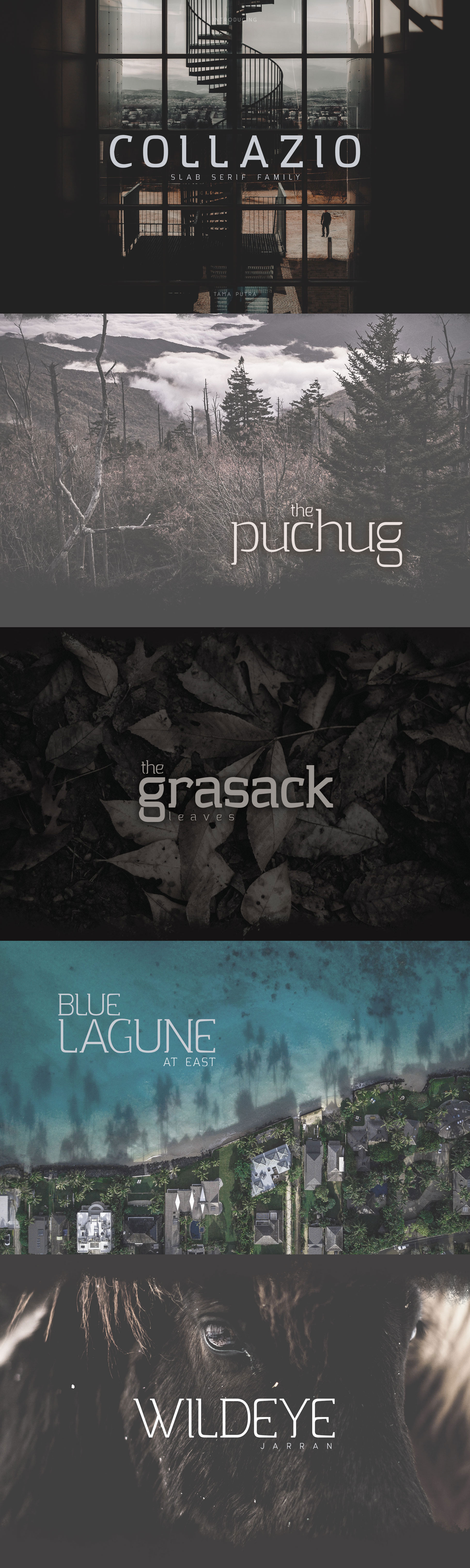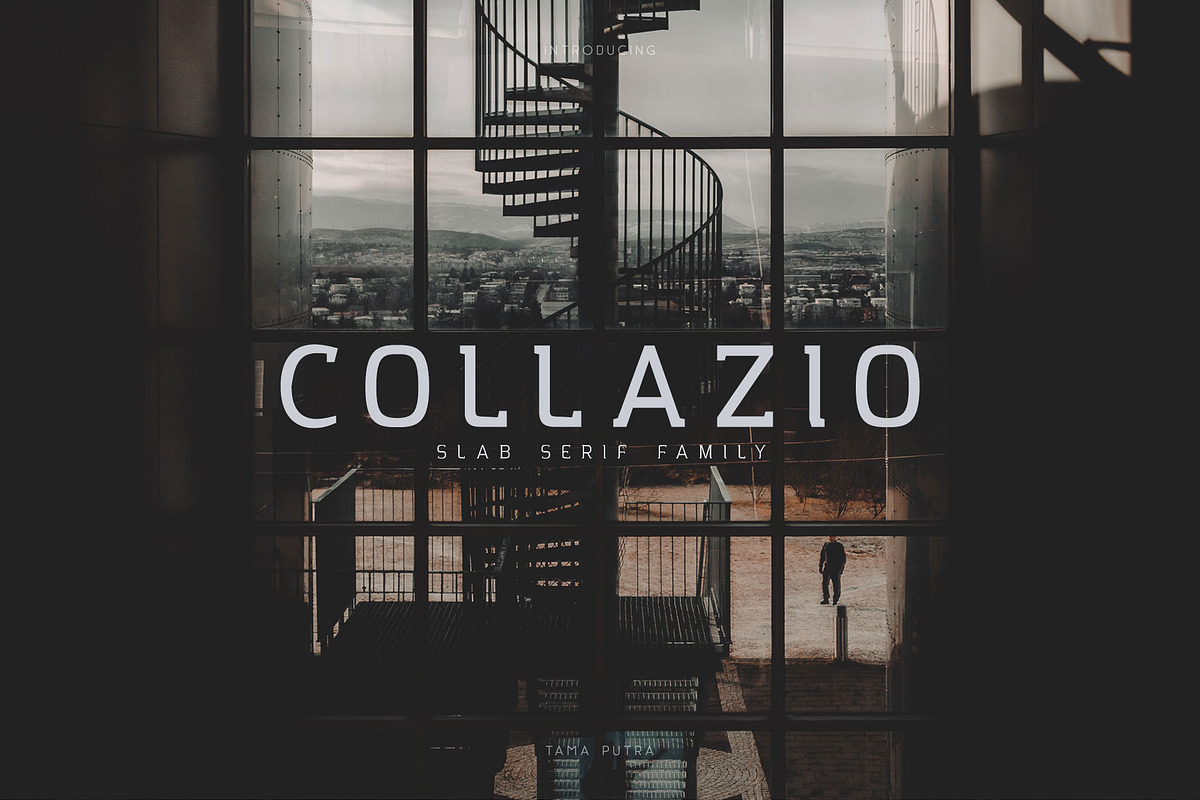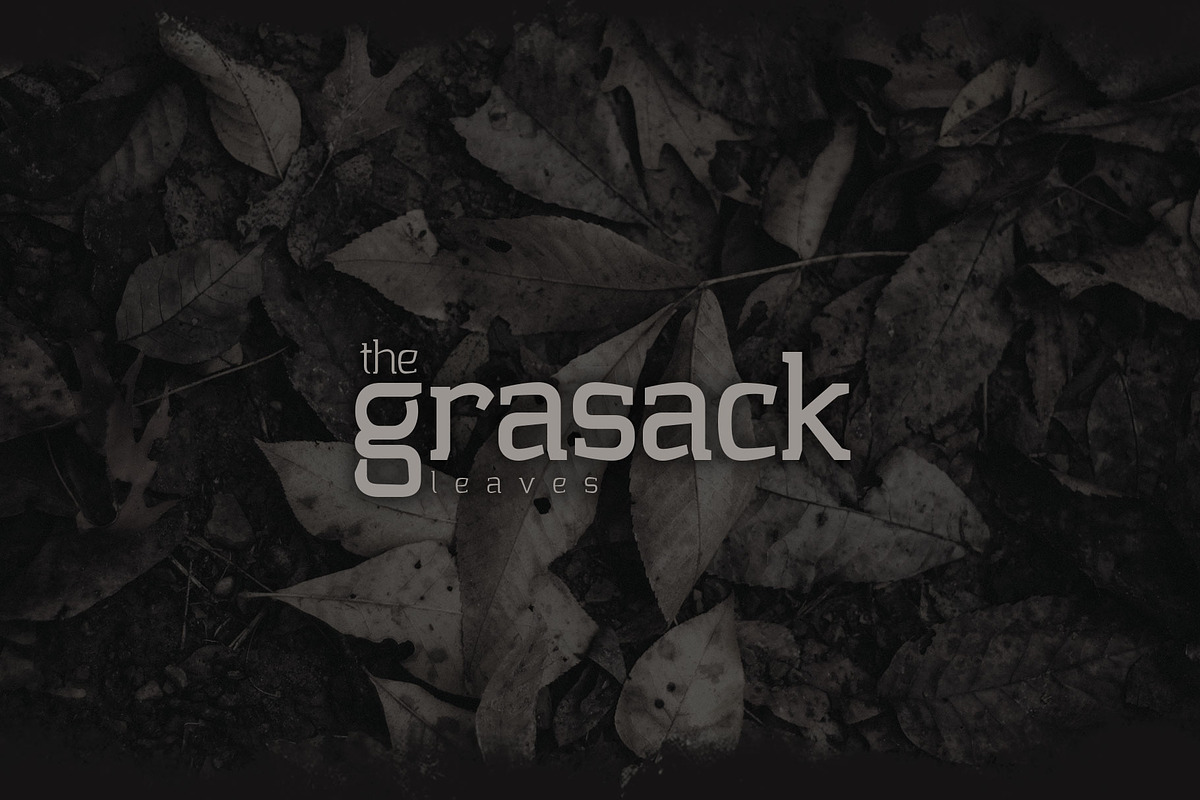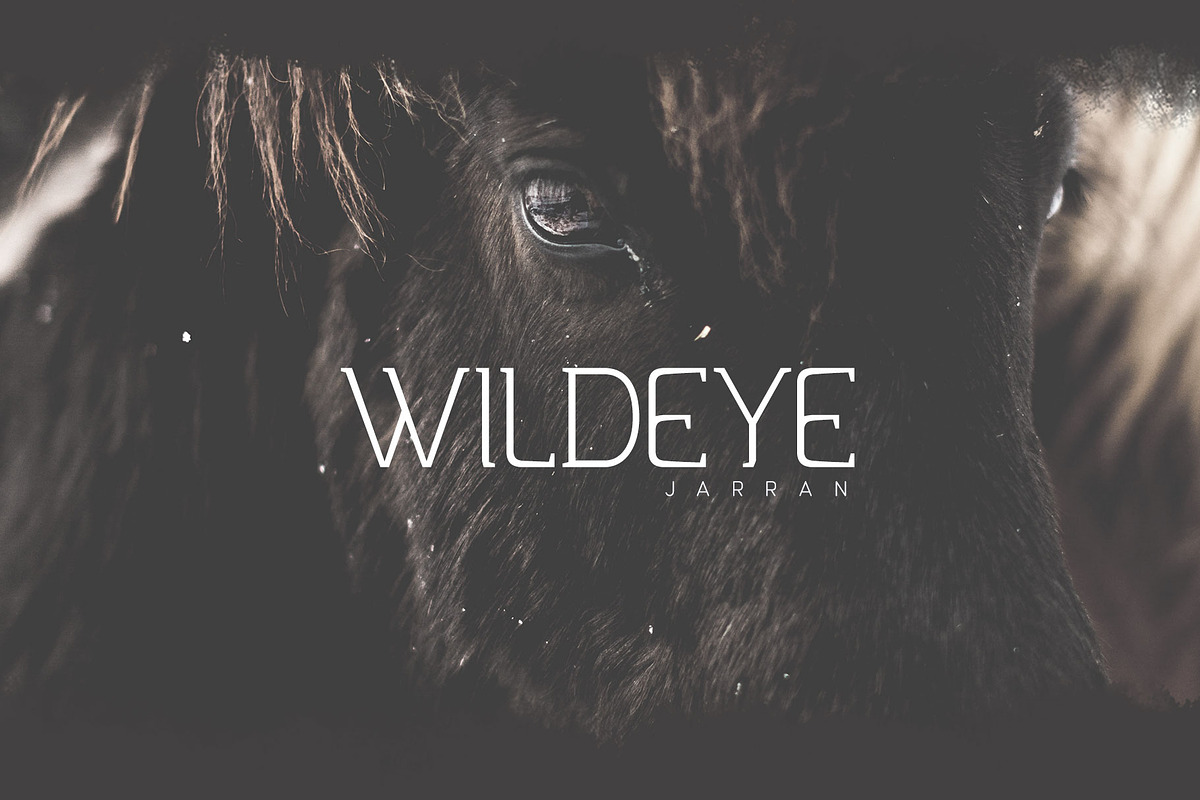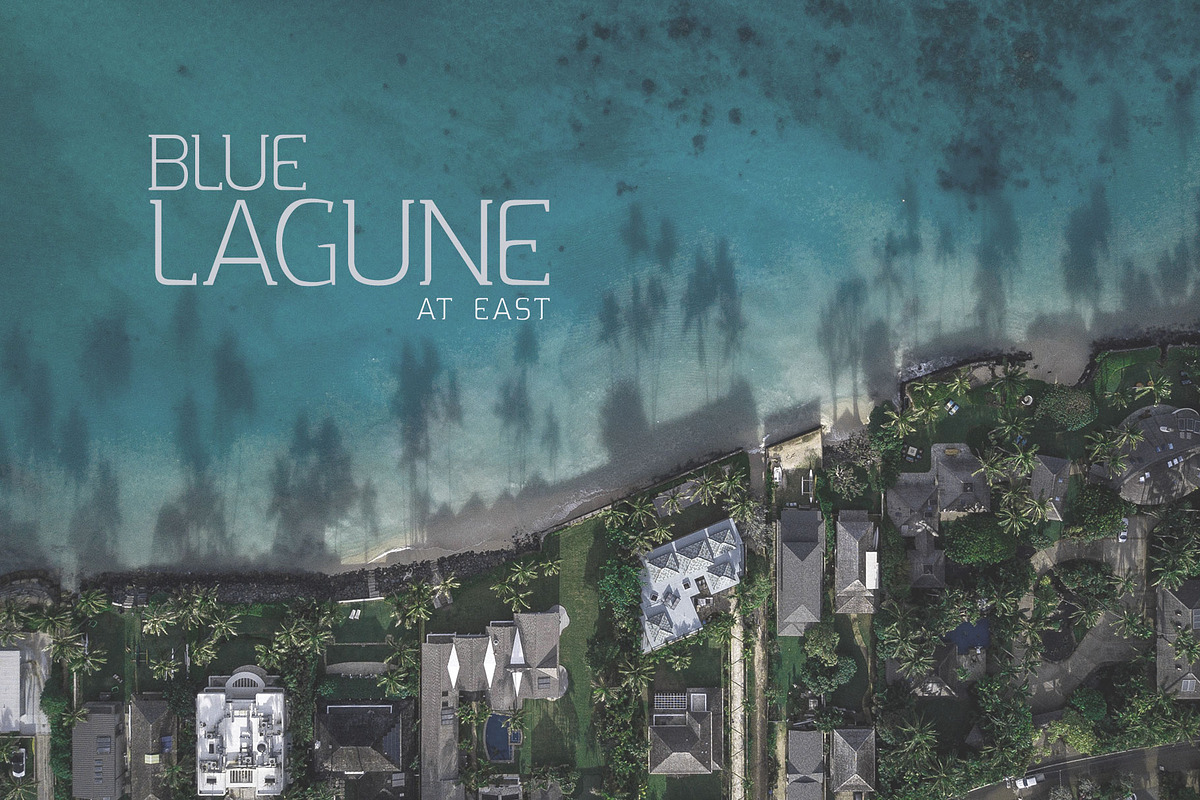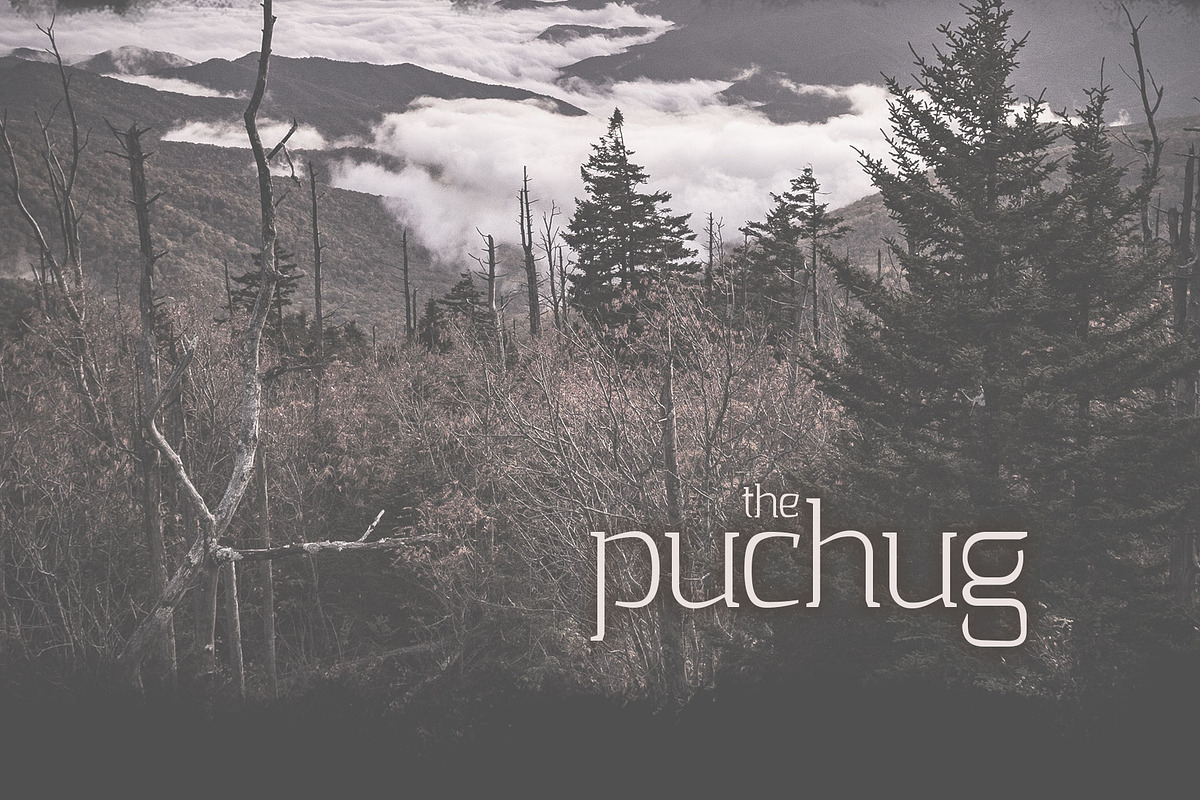
Collazio Serif Font
Collazio Family Typeface
Collazio is a serif family typeface. It includes multi-lingual and currency support, numerals, and punctuation.
Collazio typeface is suitable font for creating beautiful things and many creative work.